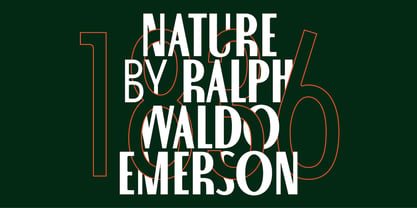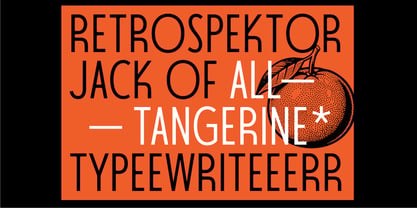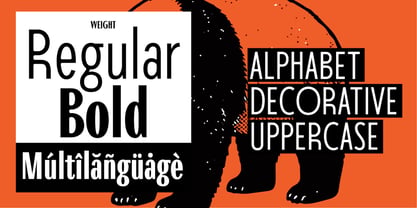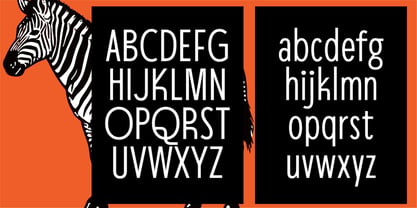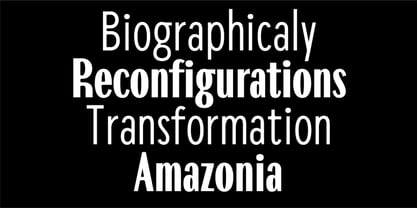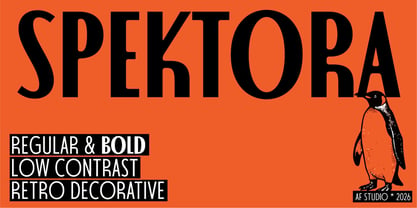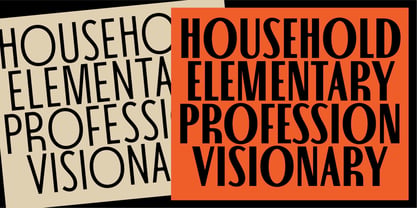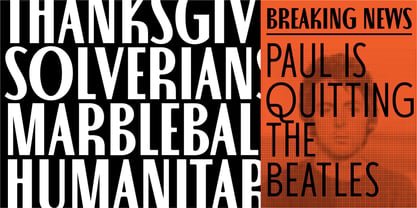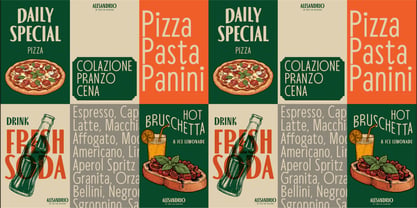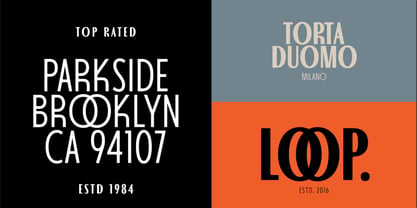
Spektora
by Adam Fathony
The Spektora Font Family was designed by Adam Fathoni Haris and published by Adam Fathony. Spektora contains 2 styles and family package options. More about this family
Spektora is a striking condensed display font that exudes a retro charm and bold personality. With its tall and narrow design, this font is crafted for projects that demand attention without being overly flashy. The low contrast and intricate decorative details evoke a vintage vibe, while its clean structure ensures a modern and user-friendly experience.
Spektora is ideal for a variety of applications, including posters, menus, packaging, branding, headlines, and labels—perfect for any design that requires a touch of attitude. Available in Regular and Bold weights, it allows for effortless mixing of sizes and creating visual contrast. Whether you choose to display it prominently, stack it tightly, or let it dominate the page, Spektora is a font that truly loves to be seen.
Designers: Adam Fathoni Haris
Foundry: Adam Fathony